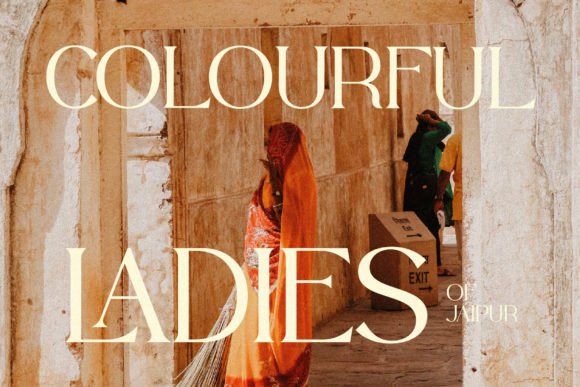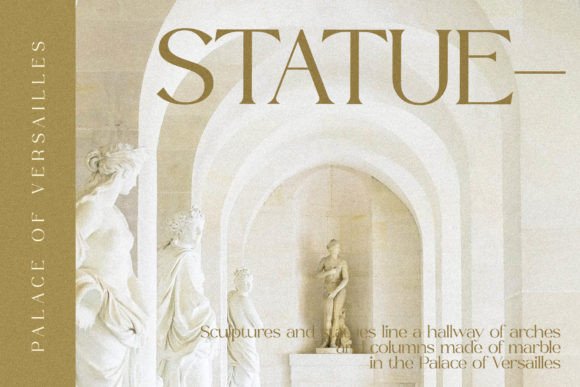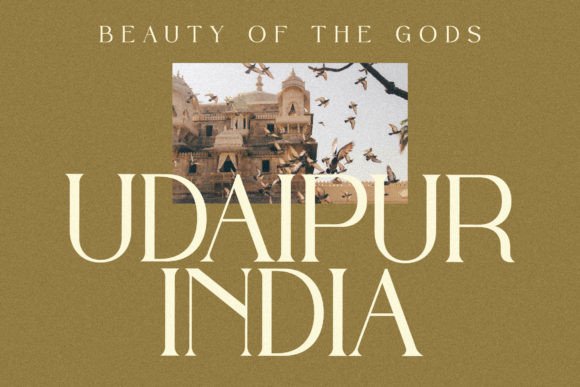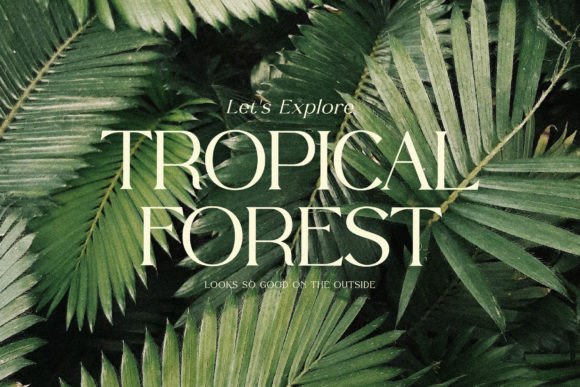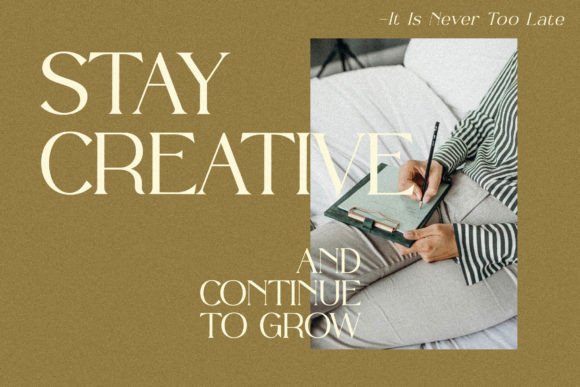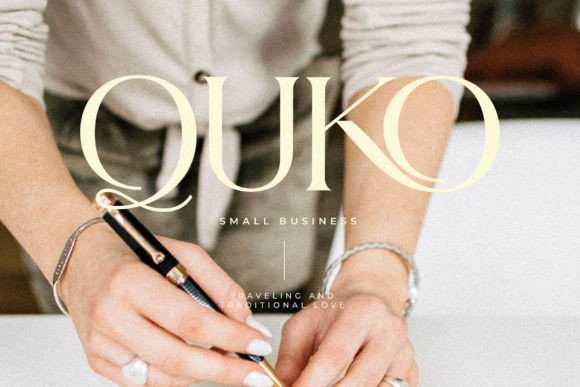
Introduction to Quillen Font Font
Fonts play a crucial role in design, and the Quillen Font font is a typeface that brings both character and versatility to any project. Whether you’re working on a branding project, a website, or a print design, the Quillen Font font offers a unique style that can elevate your work.
Quillen is a classy serif font with visual elegance, and smooth curves, making your work look really attractive.
This font is great for logo design, social media, book titles, or anything that needs a stylish touch Quillen is PUA encoded which means you can access all the glyphs and ligatures with ease.
Key Features of Quillen Font Font
Why Choose Quillen Font Font?
The Quillen Font font is more than just a typeface – it’s a design tool that helps you communicate your message with style and clarity. Its unique character set and versatile design make it suitable for a wide range of applications, from elegant invitations to bold headlines.
With its carefully crafted letterforms and balanced proportions, the Quillen Font font ensures readability and visual appeal across all mediums.
What makes Quillen Font font special?
The Quillen Font font stands out with its unique design, exceptional readability, and versatility across various design applications.